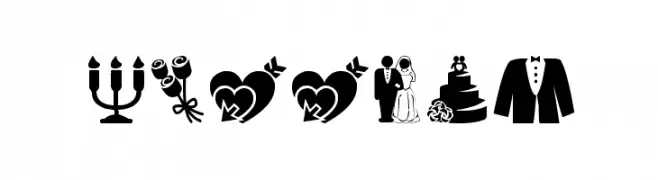
Playful, bold wedding-themed icon set with modern styling.
A decorative icon set themed around love and Valentine's Day.
A decorative font with wedding-themed illustrations instead of letters.